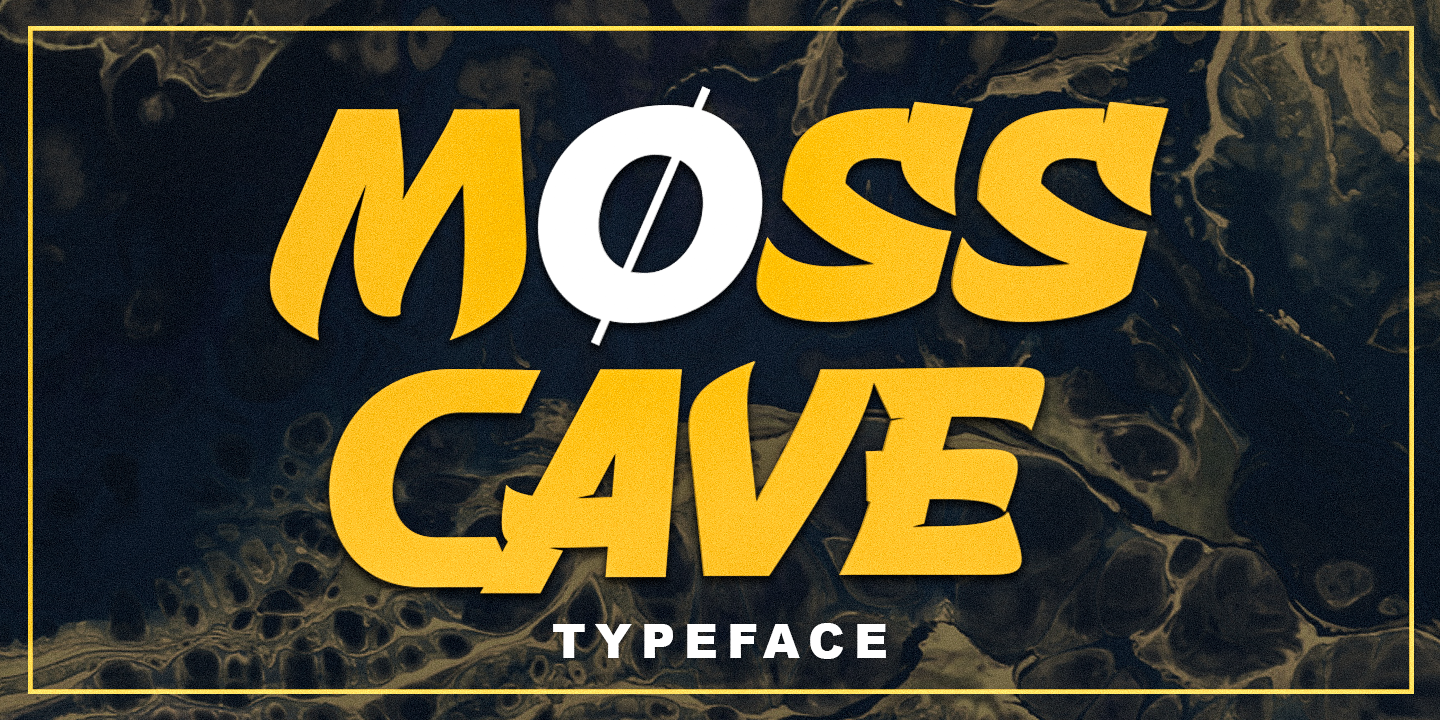
Mosscave Font excels in earthy design applications including outdoor adventure branding, forest conservation materials, natural wellness products, hiking gear packaging, eco-lodge signage, nature photography portfolios, wilderness retreat marketing, and organic advertising campaigns that require typography with natural character and mysterious woodland charm.
What makes Mosscave Font exciting is its remarkable ability to evoke the mysterious beauty and ancient wisdom of deep forest caves through organically crafted letterforms that embody the primal connection between earth and stone. This captivating typeface features rugged characteristics with moss-covered details and cave-inspired proportions that instantly communicate nature's raw beauty, ancient mystery, and earthbound authenticity. The font's wilderness personality and natural appeal make it perfect for brands seeking to establish connection with outdoor enthusiasts and communicate values of natural exploration, environmental respect, and wilderness adventure.
Mosscave Font family includes various weights and natural variations designed for comprehensive wilderness communication. The family typically includes light, regular, bold, and rugged weights, complemented by organic alternates, natural ligatures, and extended character sets with wilderness symbols that enhance its earthy aesthetic and provide maximum natural impact.
Outdoor adventure designers consistently choose Mosscave Font Free Download for projects requiring typography that embodies wilderness mystery and natural authenticity. This earthy typeface delivers exceptional environmental appeal across outdoor applications, from digital adventure platforms to physical camping gear, ensuring consistent brand messaging with unmistakable natural authority and wilderness charm. The font's organically crafted letterforms maintain excellent readability while delivering the mysterious presence that outdoor brands demand. Nature-focused agencies worldwide rely on this wilderness typeface to communicate brand values of environmental connection, natural exploration, and outdoor excellence. Explore nature's mysteries with Mosscave Font and create memorable visual communications that resonate with audiences who appreciate wilderness beauty, natural adventure, and the ancient wisdom of untamed landscapes that connect us to earth's primal essence.